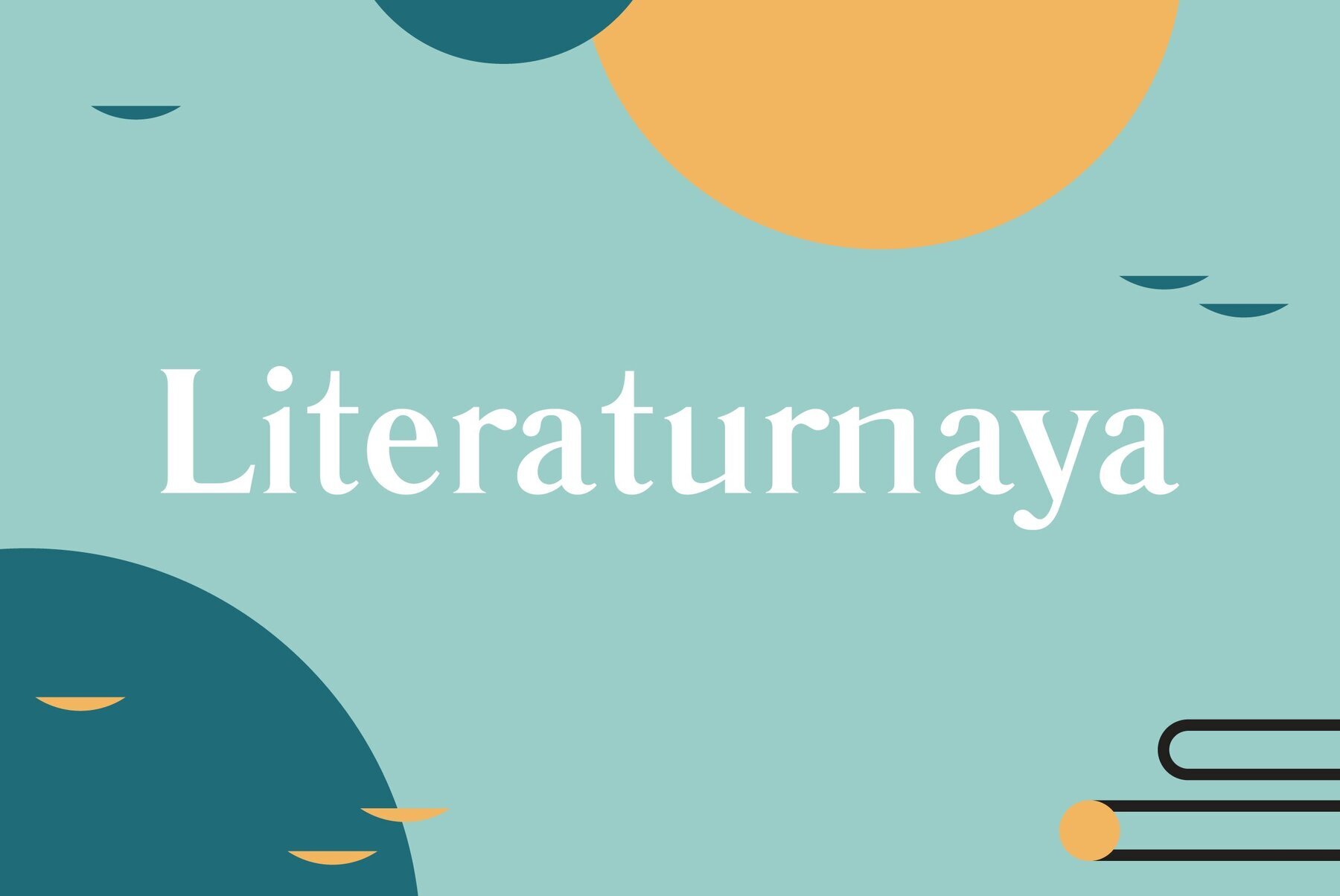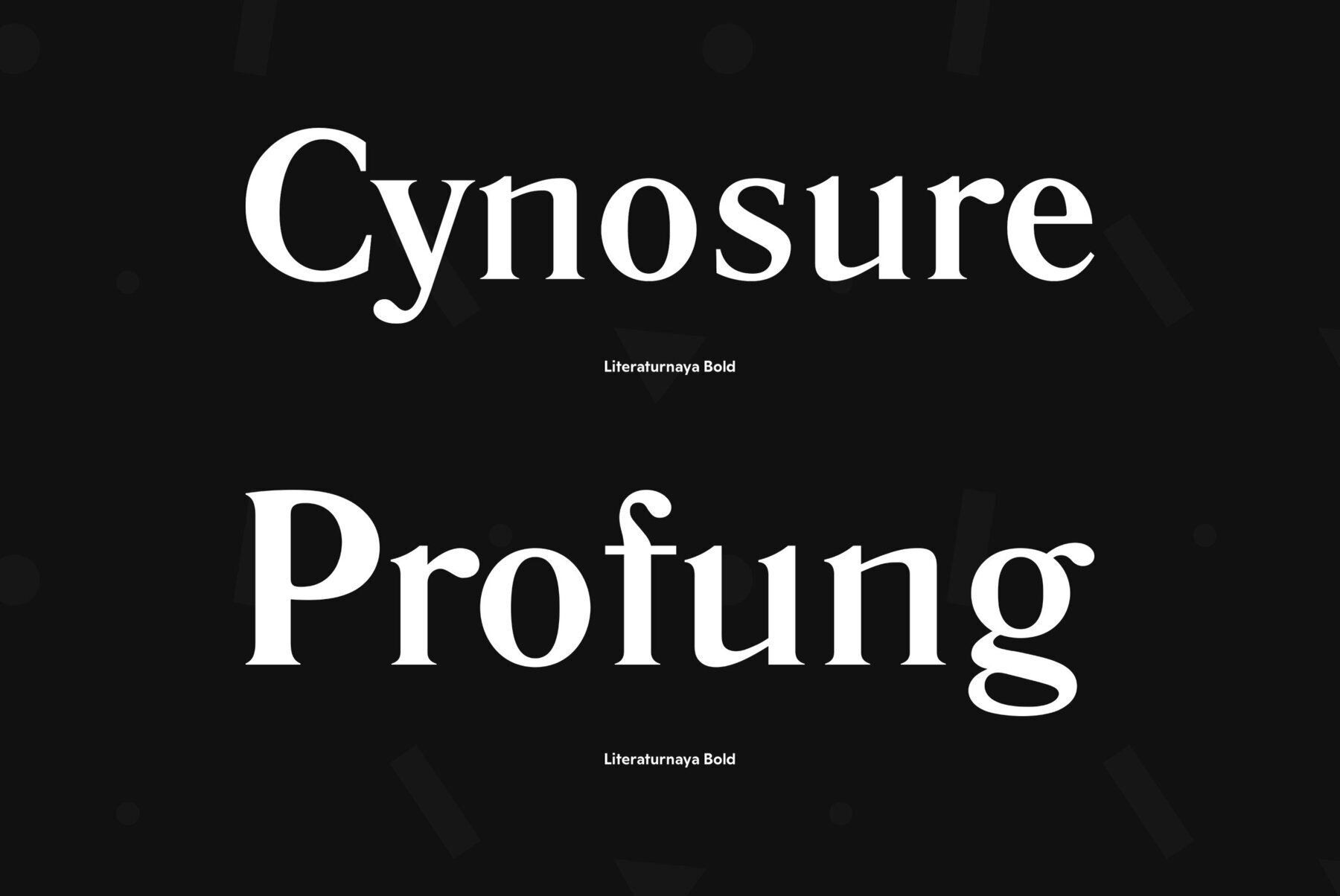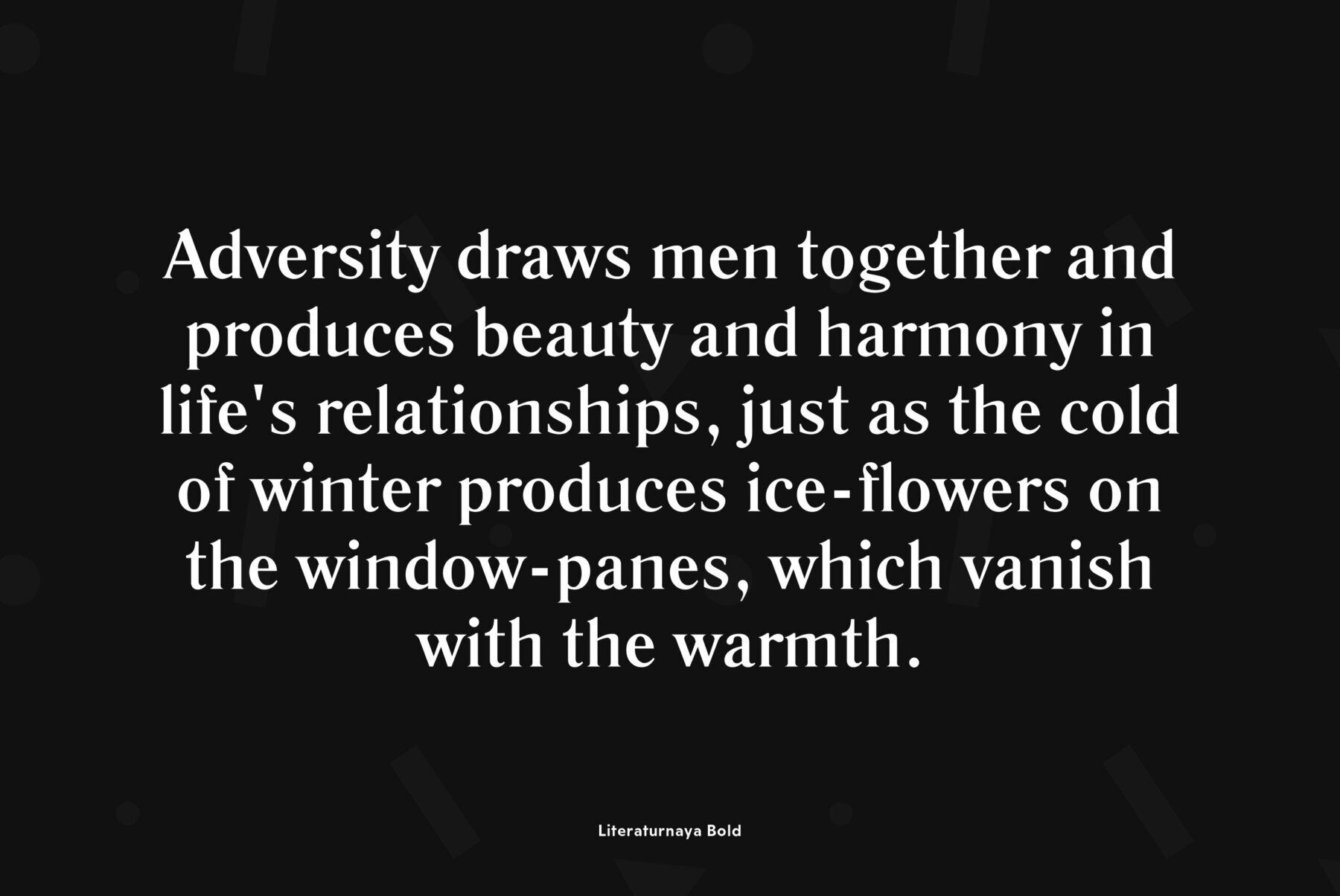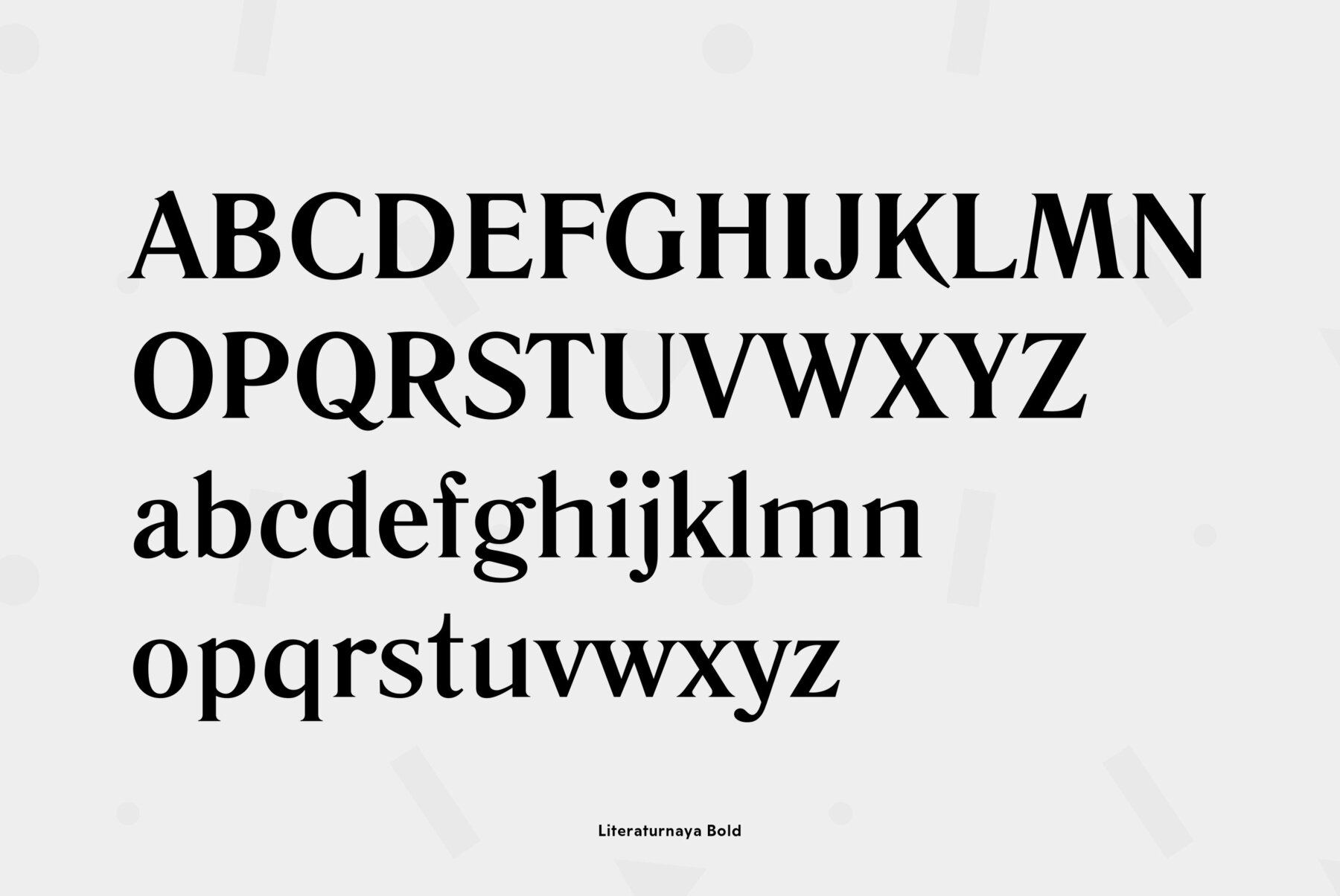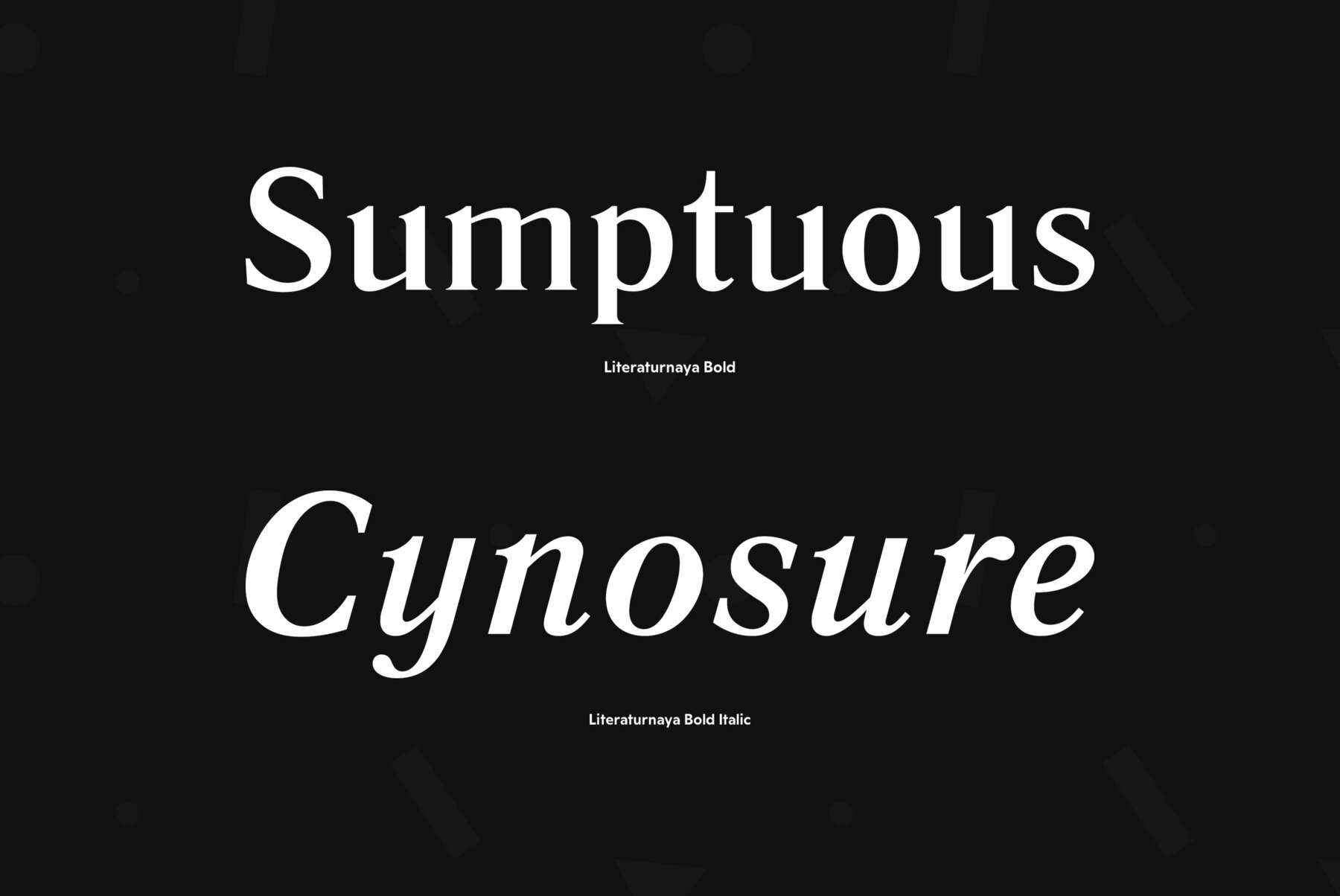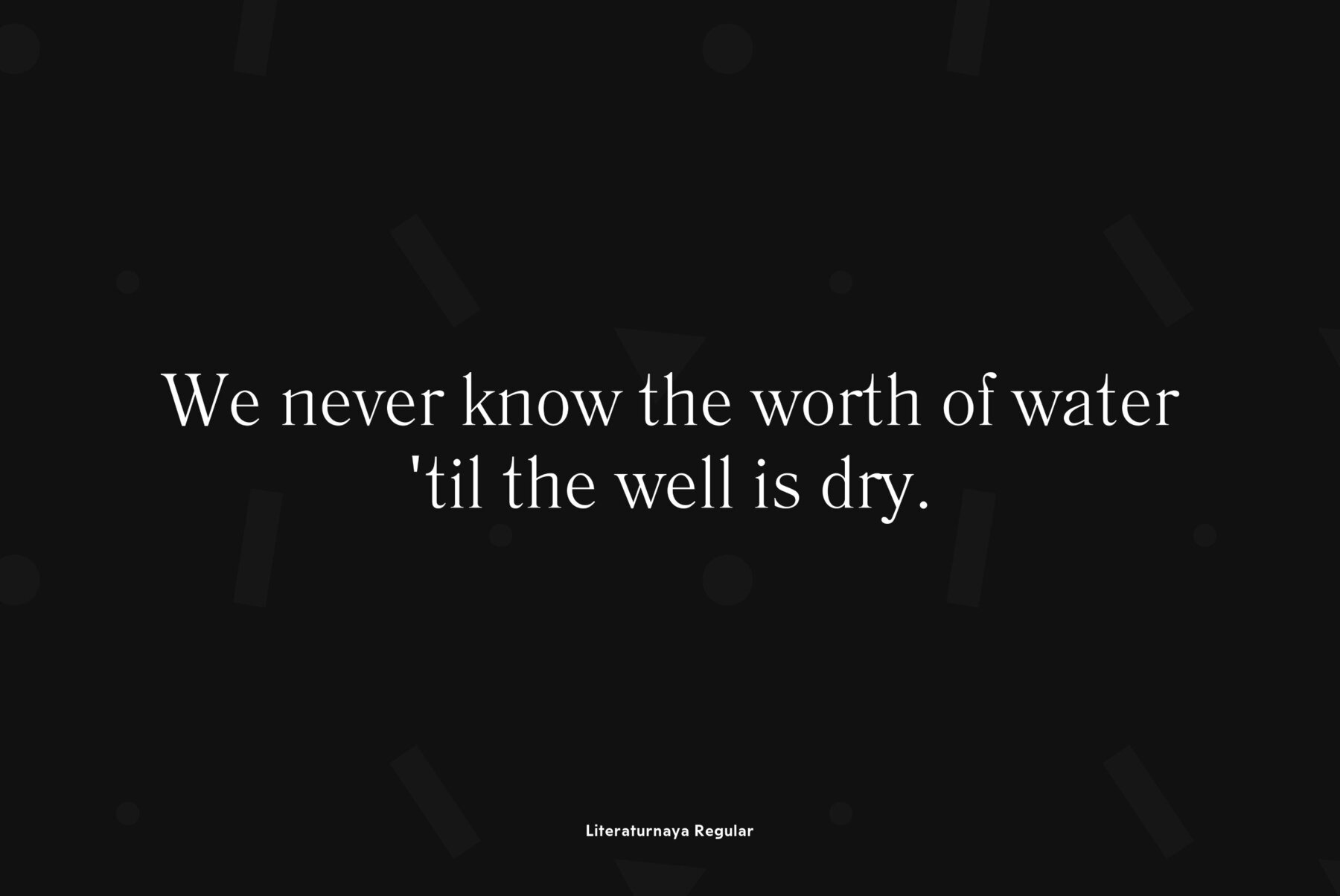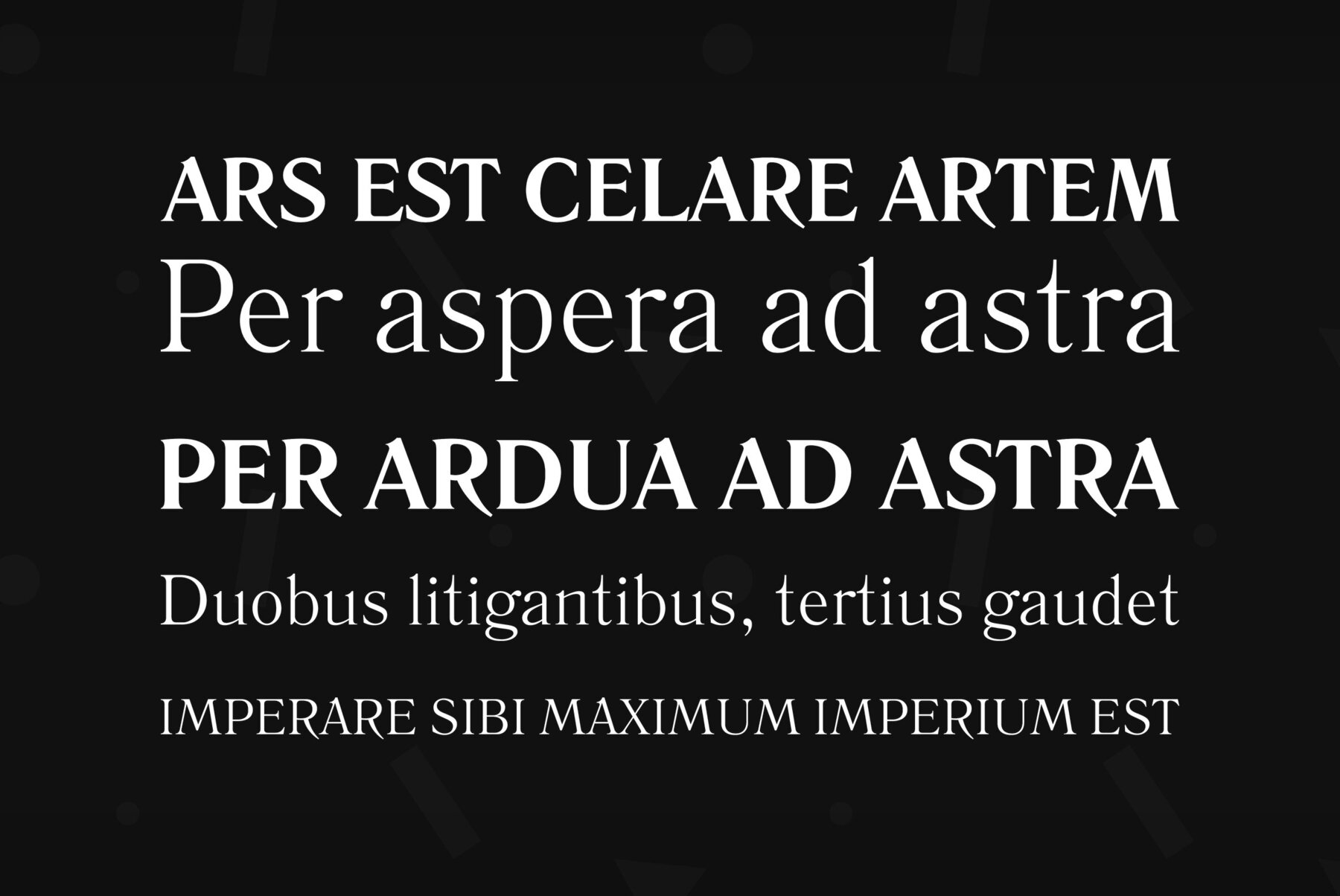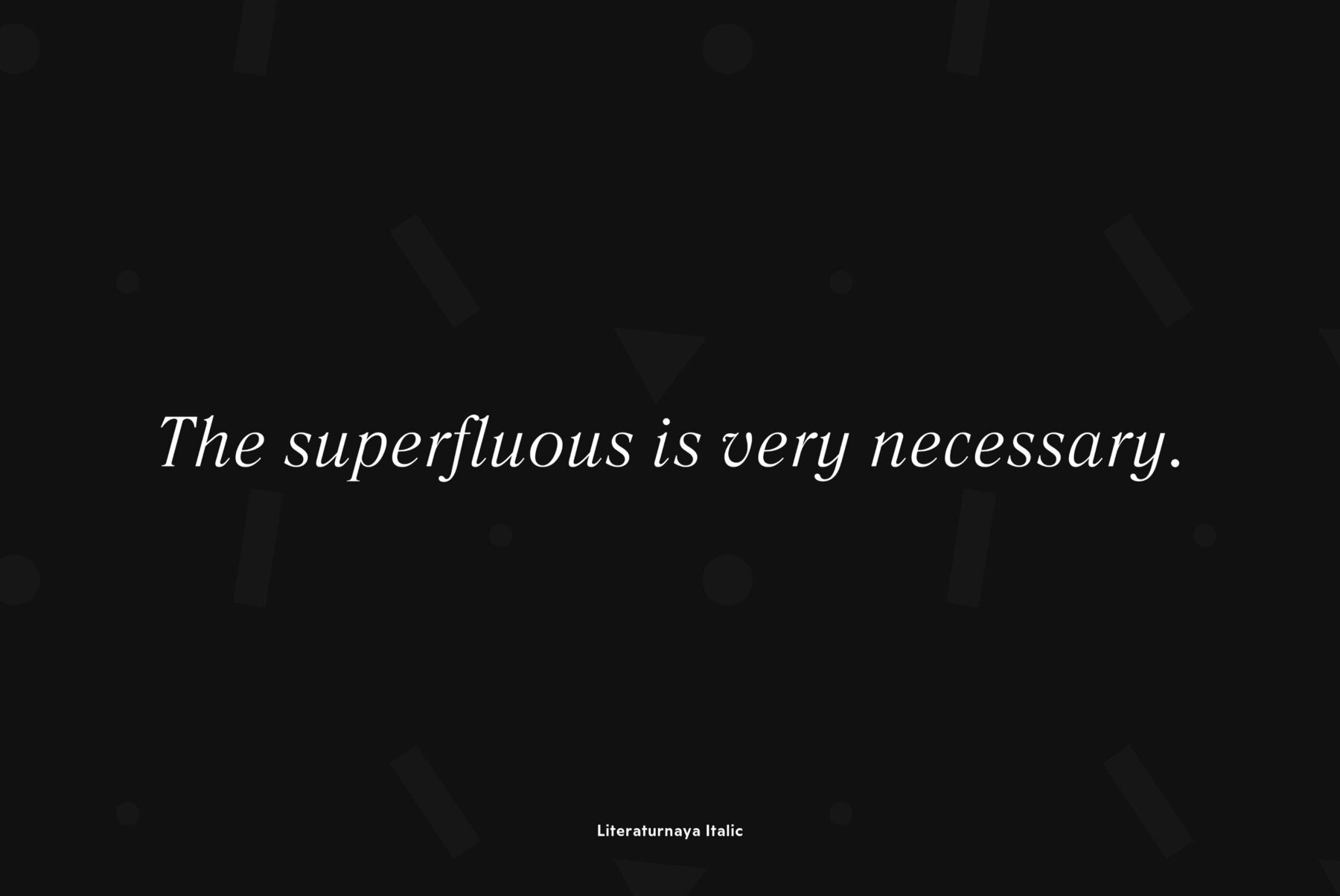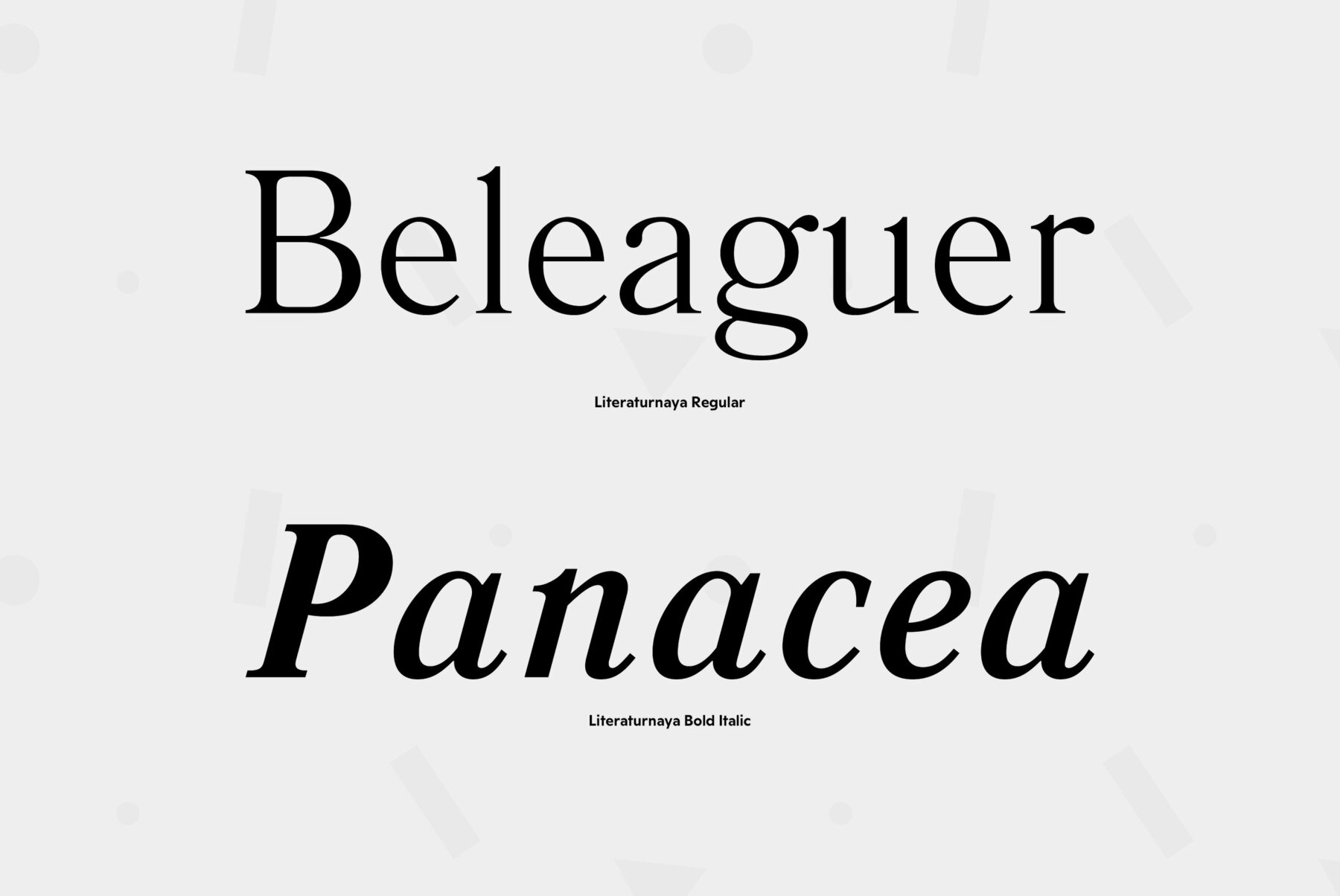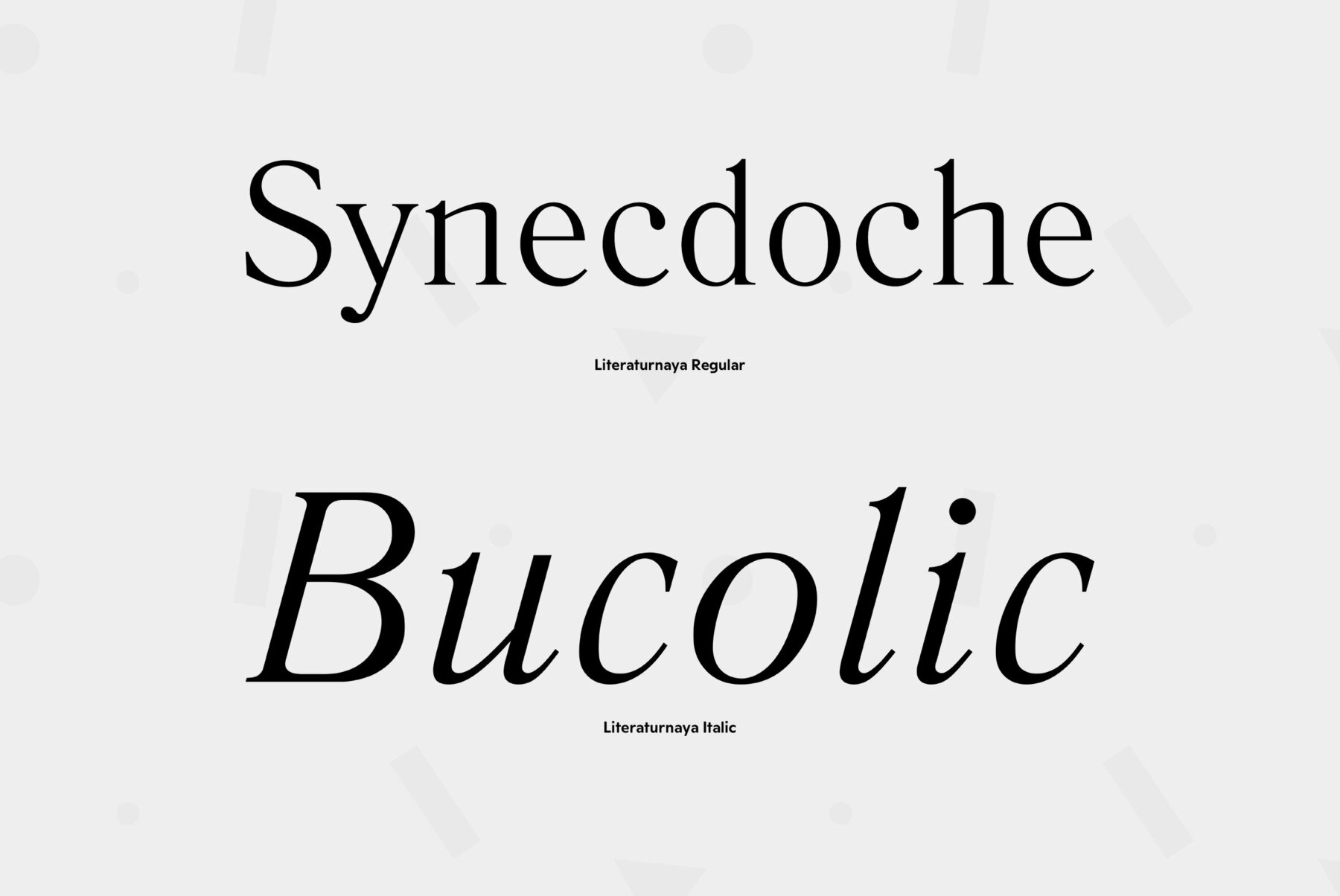
Designed at NII OGIZ type design bureau circa 1940. Based on Latinskaya of the Berthold foundry (St.-Petersburg, 1901), Cyrillic version of Lateinische of H.Berthold (Berlin, 1899). The digital version was developed at ParaType (ParaGraph) in 1996 by Lyubov Kuznetsova. The favorite text typeface of Soviet typography.